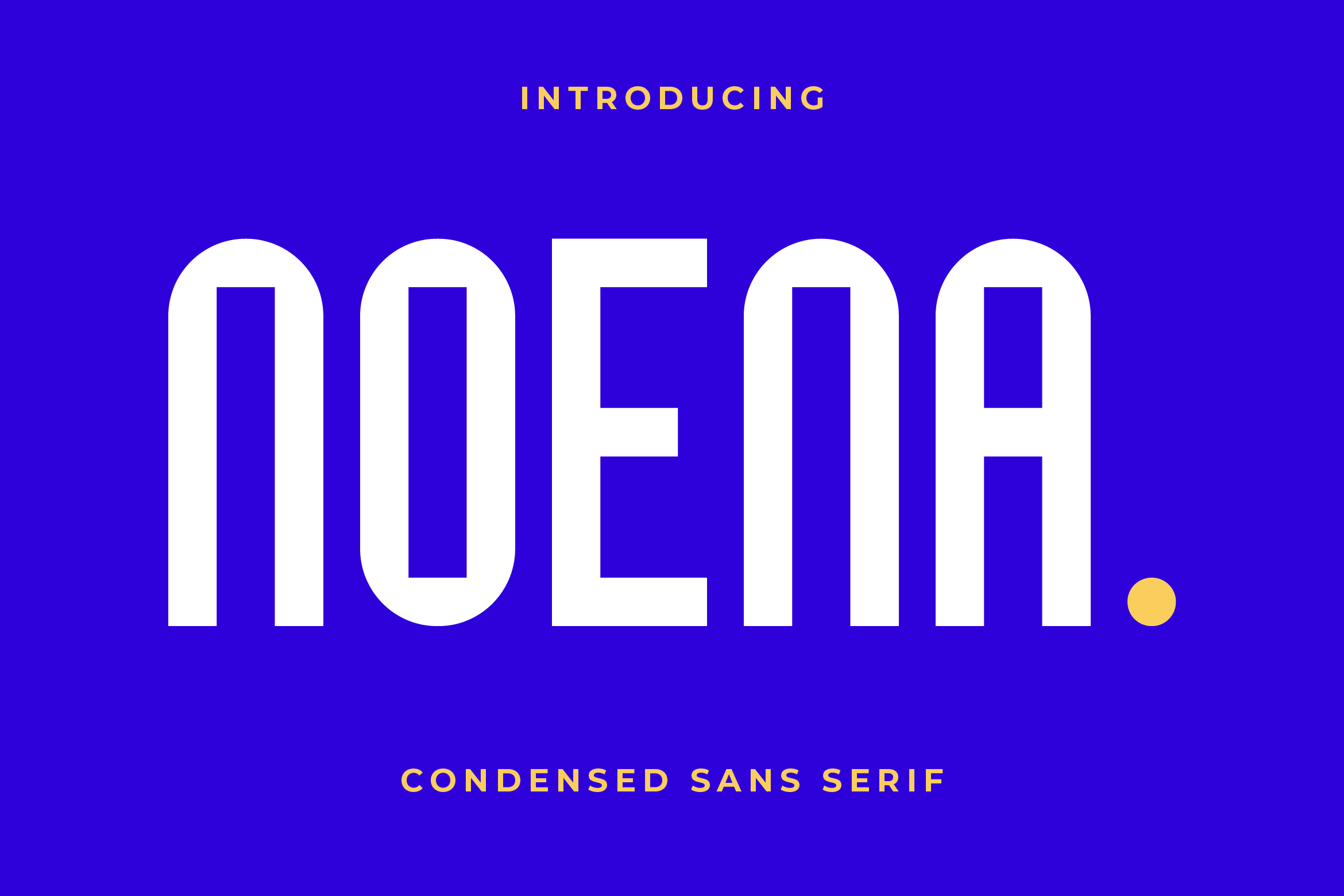
- Noena Semi Condensed Sans Serif Font
Noena is a clean and contemporary sans serif font that combines minimalist aesthetics with versatile functionality. Featuring smooth curves, geometric balance, and refined letterforms, Noena is perfect for branding, editorial layouts, packaging, social media graphics, and website design.
Its modern design ensures excellent readability, making it ideal for both bold headlines and elegant body text. Whether you’re working on lifestyle branding, tech products, or creative digital content, Noena brings sophistication and clarity to every project.
The font includes uppercase and lowercase letters, numerals, punctuation, multilingual support, and stylistic alternates for extra flexibility.
Create modern and timeless designs with Noena — the sans serif font that defines simplicity and elegance.